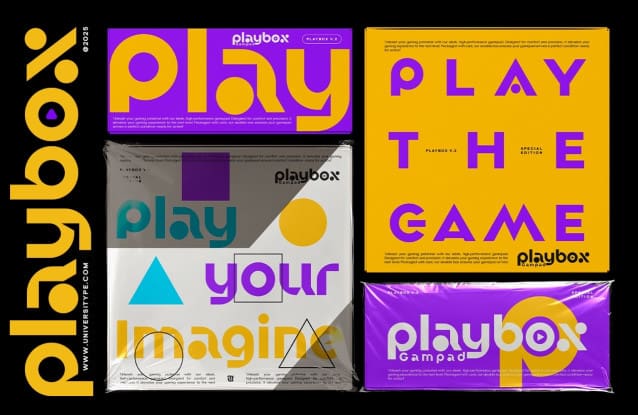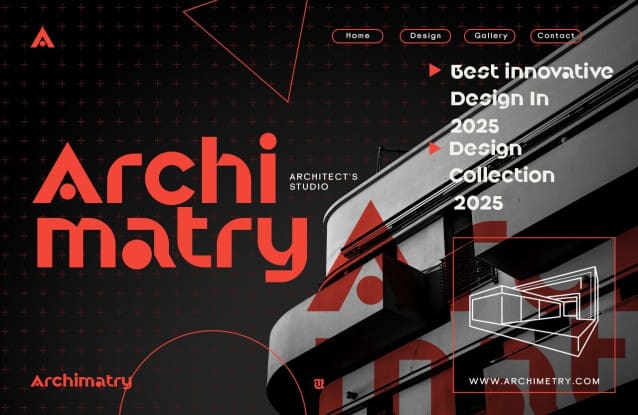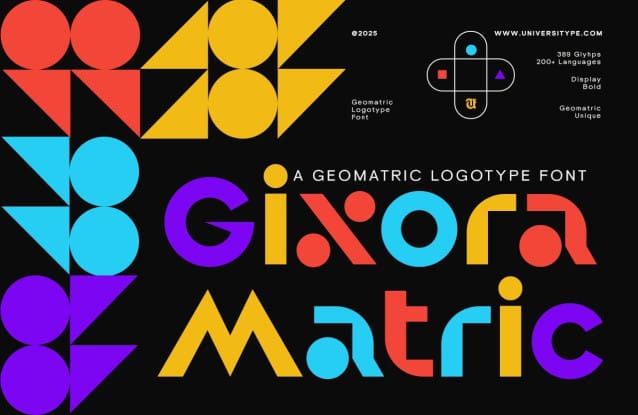
UT Gixora Metric Font
UT Gixora Metric Font, a bold geometric logotype font inspired by modernist and Bauhaus typography. Perfect for logo design, marketing materials, and websites, UT GixoraMetric supports over 200 languages with 389 glyphs for a truly global impact. Elevate your brand with a unique and playful typeface that stands out.